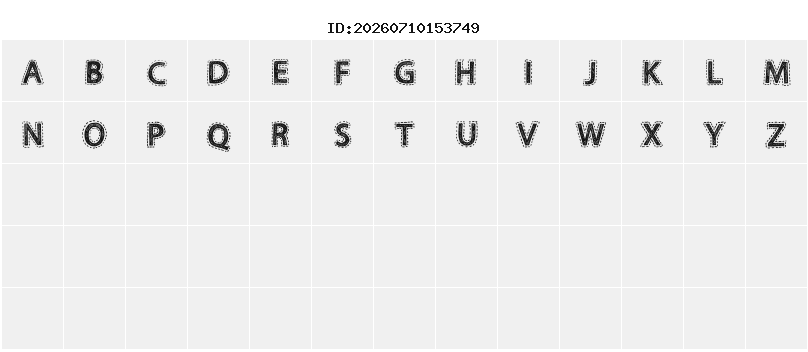
Fabrics Preview
• Font Name: Fabrics
• Full Font Name: Fabrics Regular
• Designer: CloutierFontes
About Fabrics.ttf
Fabrics.ttf is a modern, elegant sans-serif font designed for ultimate readability and visual harmony. Perfect for branding, headlines, web design, and print materials.